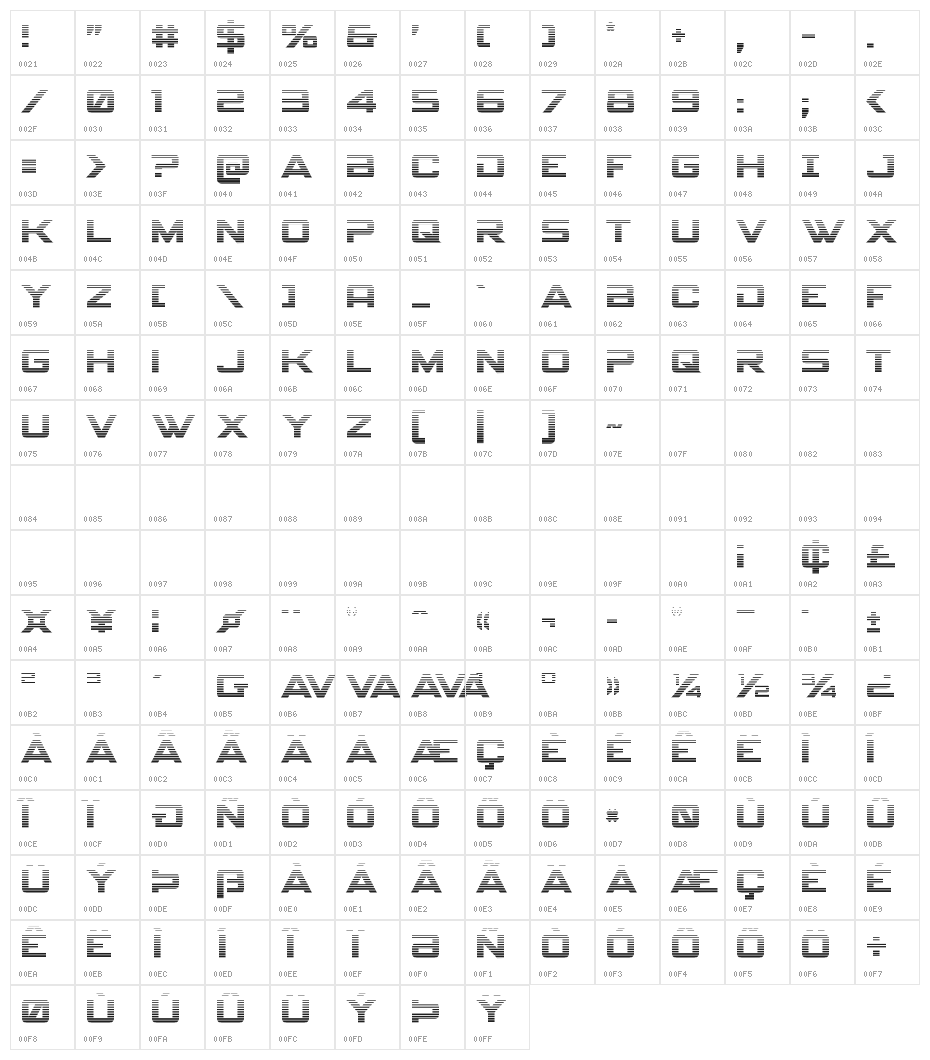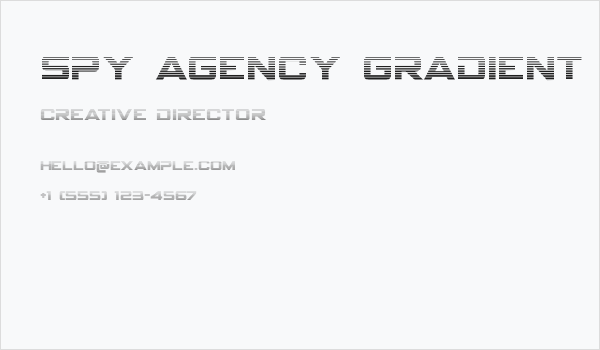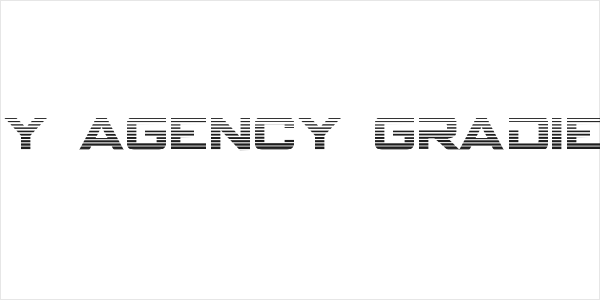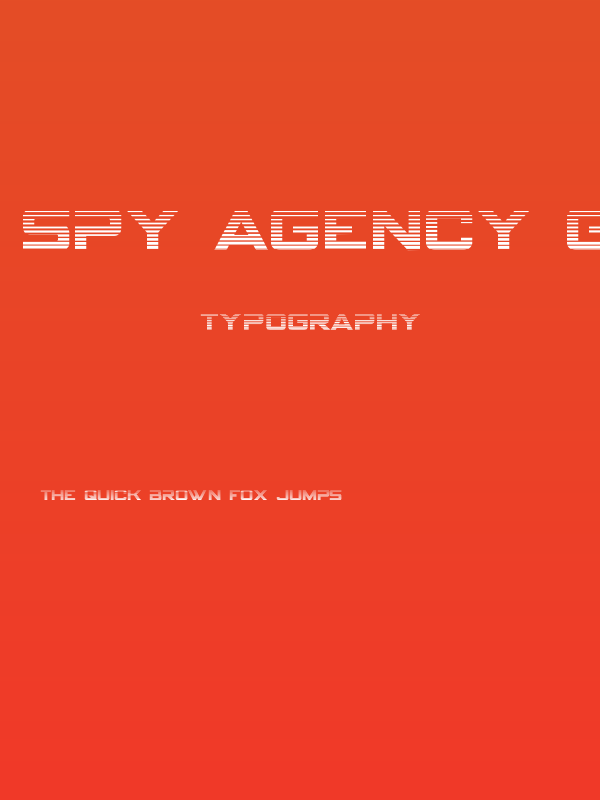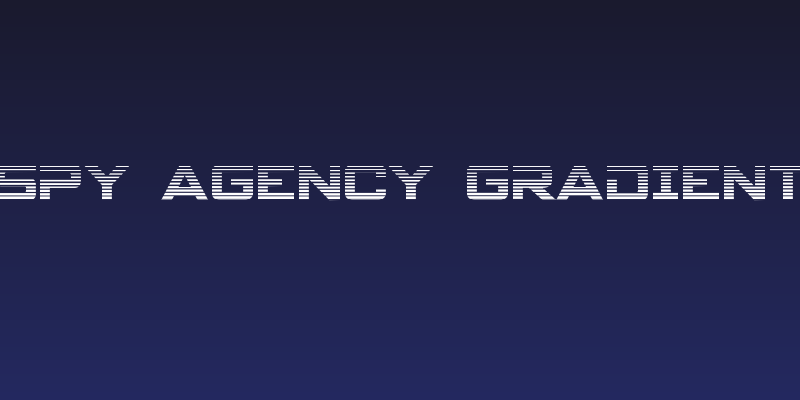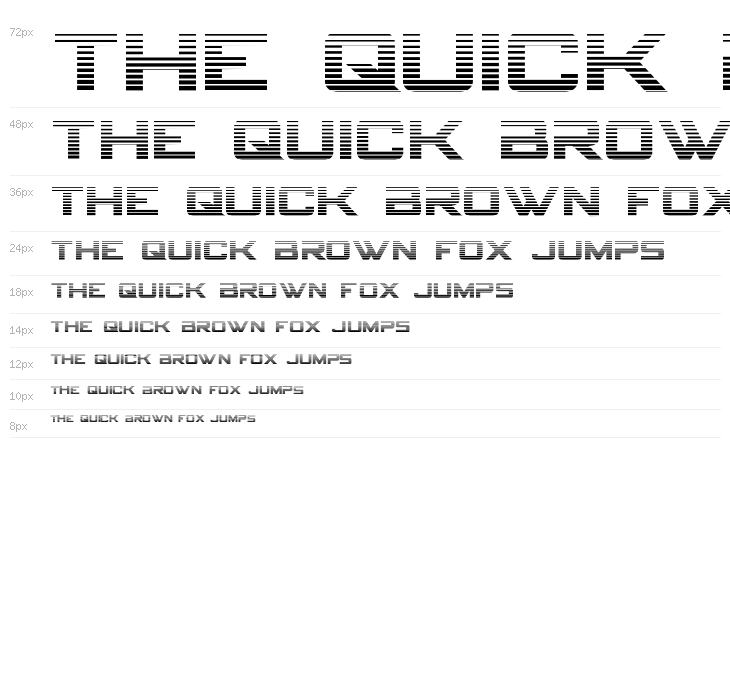
Spy Agency Gradient Font
Spy Agency Gradient Description
This font features a futuristic and digital aesthetic, characterized by its unique striped pattern that runs horizontally across each character. The design gives an impression of movement and speed, making it ideal for themes related to technology or science fiction. The uppercase and lowercase letters maintain a consistent style, with sharp angles and geometric shapes. Numbers and special characters are also designed with the same striped effect, ensuring uniformity across all glyphs. The font's distinct style makes it stand out, suitable for eye-catching headlines or creative projects.